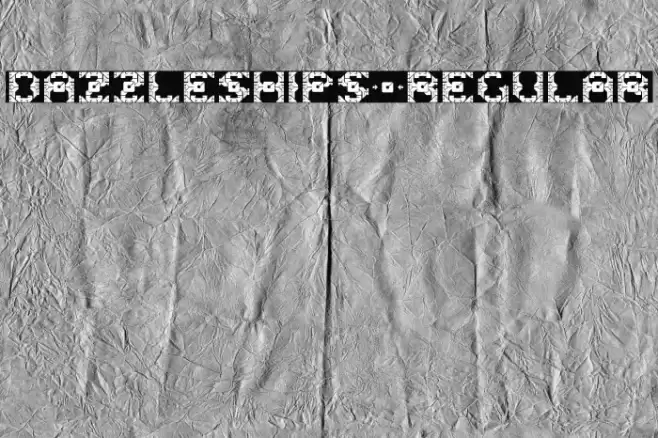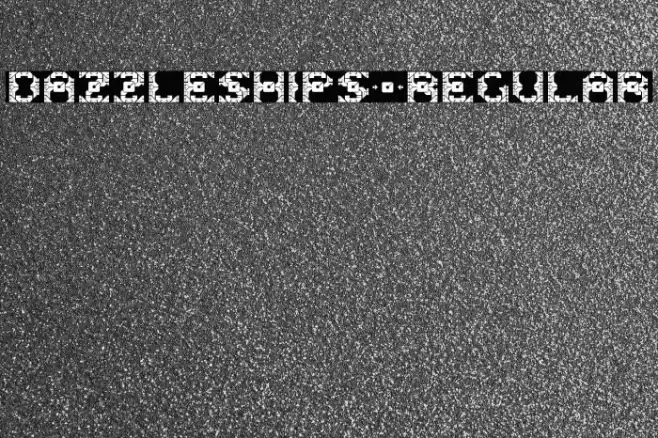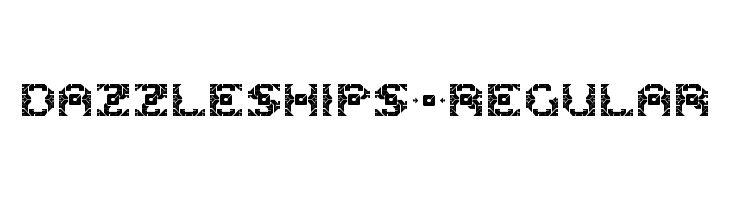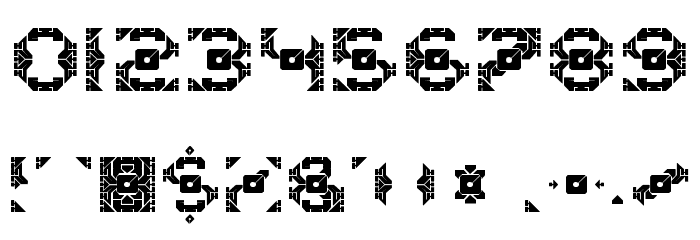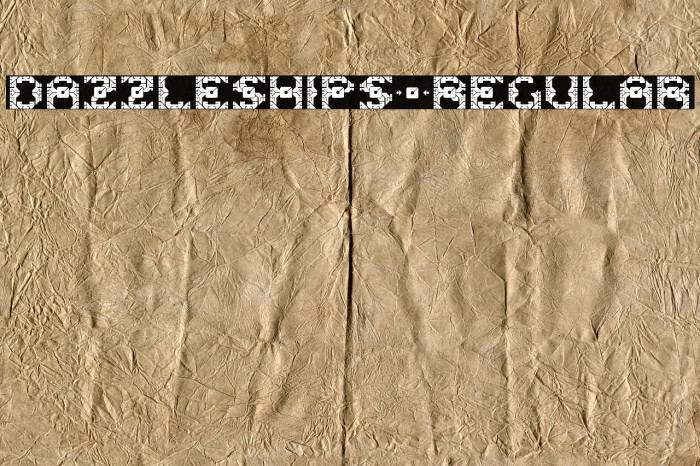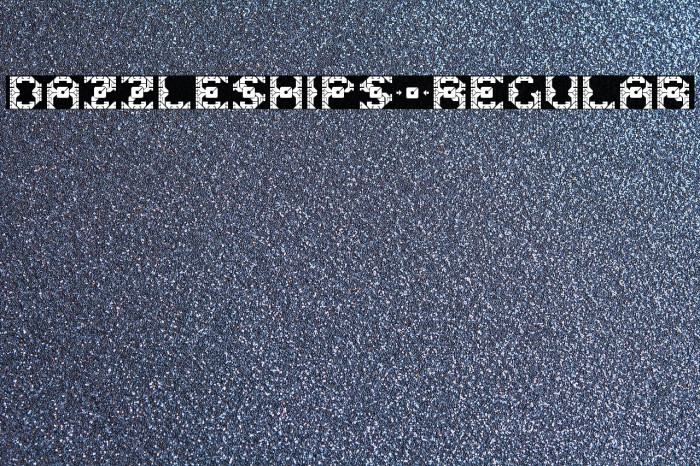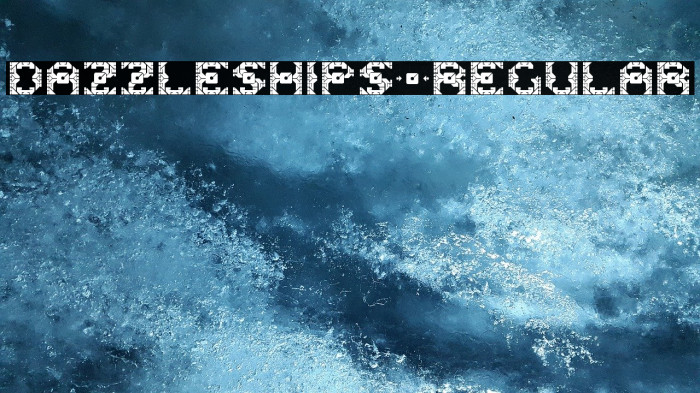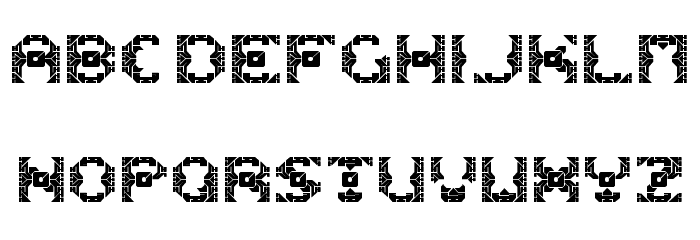
DazzleShips-Regular Font
DazzleShips-Regular Description
This font features a unique, geometric design with intricate patterns filling each character. The letters and numbers are bold and stand out with a decorative style that incorporates angular shapes and symmetrical motifs. The overall appearance is striking and artistic, making it ideal for projects that require a visually impactful typeface. The characters are evenly spaced, ensuring readability despite the complex design. This font is perfect for creative and modern applications where a distinctive look is desired.
A bold, geometric font with intricate, decorative patterns from Decorative fonts.
- Proposed Projects: Ideal for posters, album covers, branding, and artistic projects that require a bold statement.
- Overall Style: Modern, Decorative